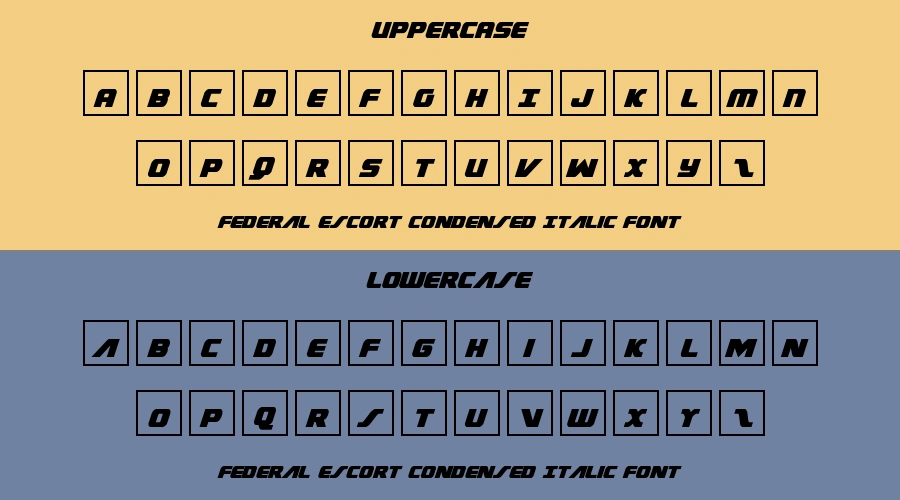
About Federal Escort Condensed Italic Font
When typographic excellence matters most, Federal Escort Condensed Italic Font delivers through its thoughtful blend of unique personality and reading comfort. Specially crafted for scientific papers, it offers the versatility and cultural relevance required for sophisticated design work. Every detail serves a purpose.
The character set showcases thoughtful details like curved brackets alongside functional terminal characters. This proves especially valuable in footnotes, where archive stability directly influences results. Particular attention was paid to x-height and cultural resonance during development.